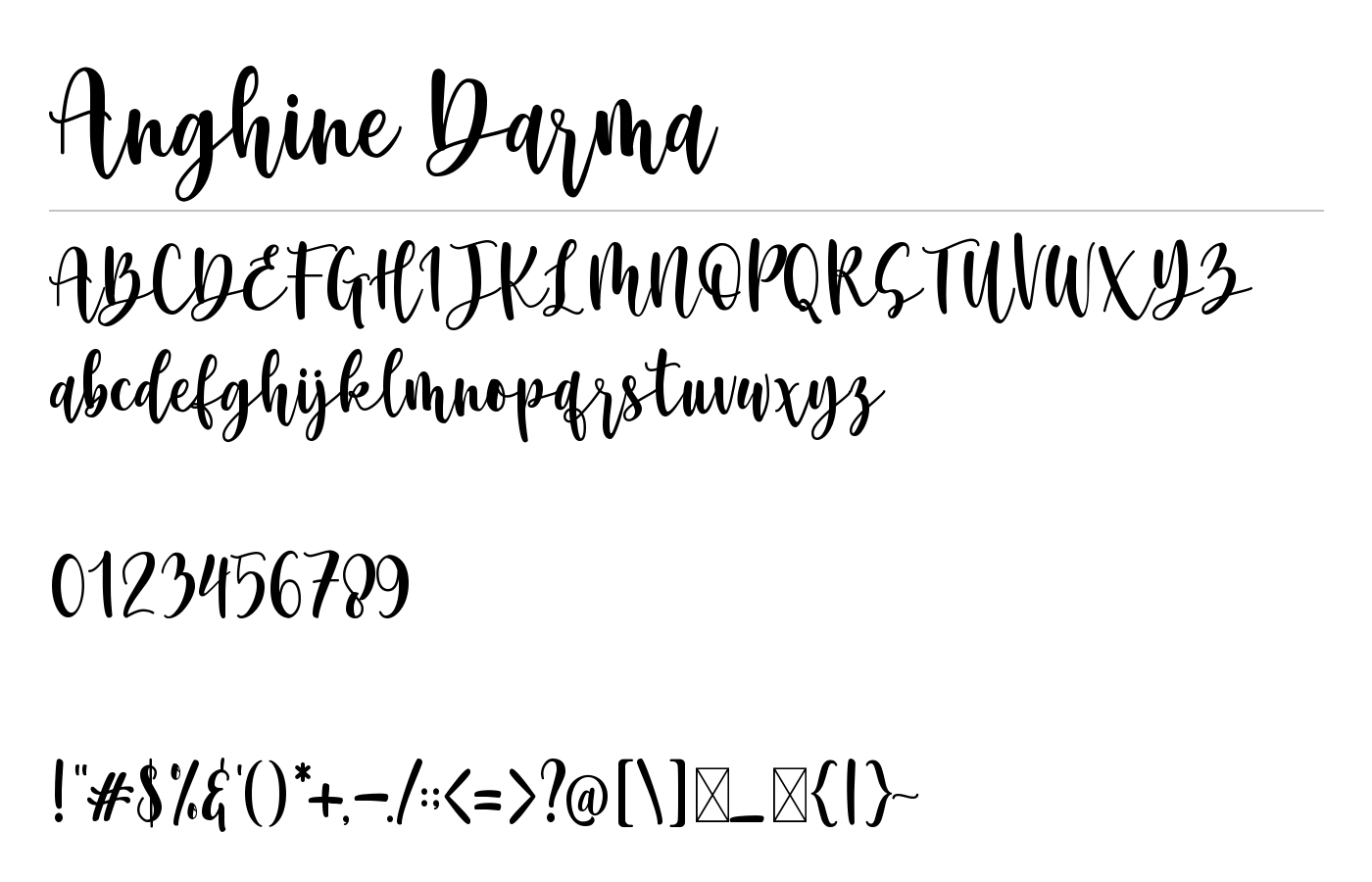
Anghine Darma is a lively script font with elegant, flowing letterforms that combine a modern hand-lettered feel with a touch of sophistication. Its balanced weight and playful curves make it perfect for branding, invitations, and creative projects that seek a friendly yet stylish expression. This font works beautifully in headlines and decorative text where a personalized and charming look is desired.
Anghine Darma Font
About Anghine Darma Font